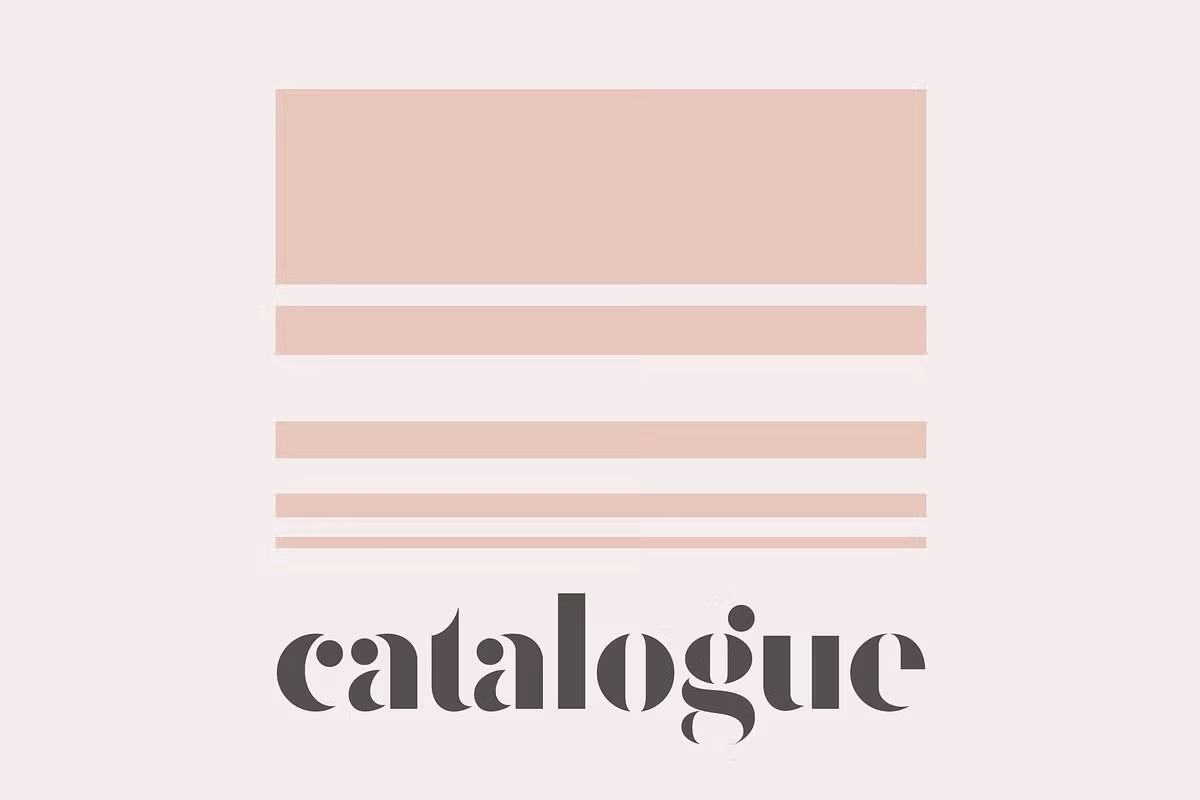
Catalogue - A Minimal Typeface Free Download
The Catalogue - A Minimal Typeface Free Download is a sleek and modern font designed to bring simplicity and elegance to your designs. Featuring clean, geometric lines and an open, minimalist structure, this font is perfect for creating professional branding, websites, editorial designs, and promotional materials. Whether you're working on a corporate project, modern brand, or a clean, minimalistic design, Catalogue adds a refined and sophisticated touch to your work.
Catalogue - A Minimal Typeface Free Download is ideal for designers looking to create contemporary, stylish typography with a simple yet impactful look. Perfect for modern branding, digital content, or sleek advertising, this font will enhance your designs with its clean and minimalist style. Download it today and give your projects a professional, elegant look with Catalogue!